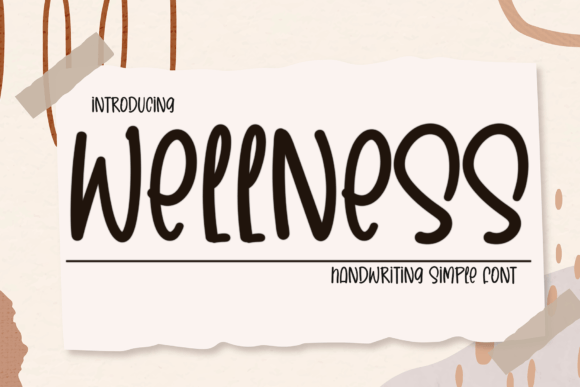
In a world saturated with visual noise, your creative expression deserves a voice that resonates, a voice that transcends the ordinary and embraces the extraordinary. Enter "Wellness," a script font family meticulously crafted to elevate your visual artistry to new heights.
With its clean lines, sleek aesthetic, and unwavering versatility, "Wellness" is the perfect companion for your branding endeavors. Effortlessly capture the essence of your creative vision, whether it's through captivating photography, striking watermarking, or a website design that leaves a lasting impression.
"Wellness" is more than just a font; it's an extension of your creative soul, a tool that empowers you to weave captivating typographic tapestries that speak volumes about your brand's identity. Its versatility knows no bounds, adapting seamlessly to a myriad of design projects, from elegant logos that exude sophistication to playful social media posts that spark engagement.
Let "Wellness" be your creative muse, guiding you through the labyrinth of visual storytelling. Its timeless appeal ensures that your designs will stand the test of time, while its contemporary flair keeps you at the forefront of design trends. Embrace the endless possibilities that "Wellness" offers and watch your creative vision flourish like never before.
Say goodbye to mundane typography and hello to a world of boundless creativity. "Wellness" is not just a font; it's an invitation to embark on a typographic adventure where your imagination reigns supreme. Unleash the power of "Wellness" and let your designs speak volumes about your brand's unique narrative.